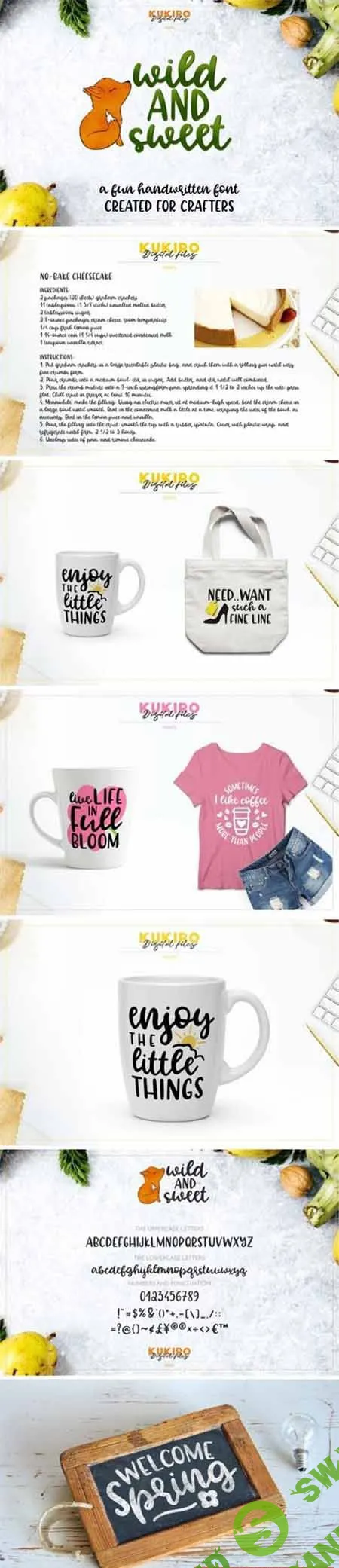
Wild and Sweet Font
Wild and Sweet is a charming hand-lettered font perfect for creating fun quotes and text. Get inspired by its playful look & feel!